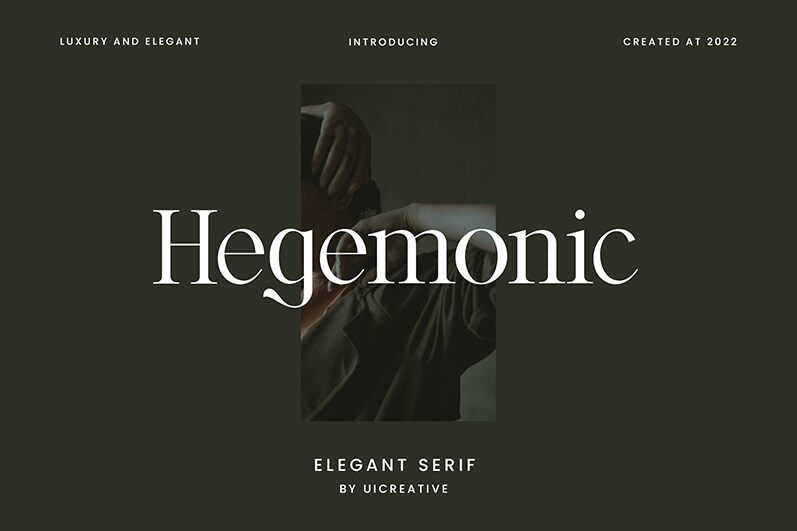
Hegemonic
Hegemonic, a captivating serif font crafted by the skilled designers at UI Creative, exudes a refined and elegant aesthetic. This typeface's striking features, including its graceful serifs and delicate flourishes, create a sense of timeless sophistication. The seamless balance between the font's weight and contrast invokes an air of sophisticated refinement, making it a versatile choice for various design applications.
Hegemonic's versatility shines through its ability to add an air of refined elegance to a wide range of projects, from high-end editorial layouts to sophisticated brand identities. Its classic yet modern sensibility allows it to seamlessly integrate into both traditional and contemporary design settings, making it a valuable asset for designers seeking to elevate the visual impact of their work.